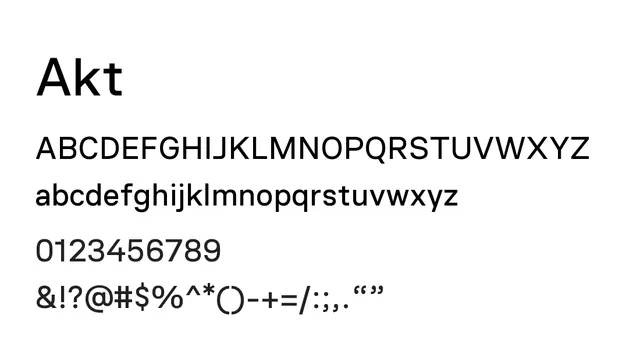
Akt
A polished neo-grotesque sans-serif with strong multilingual support across Latin, Cyrillic, and Greek scripts for global applications.
Excellent for body text and UI typography in applications requiring broad language support. The clean construction and consistent metrics work well across multiple scripts.
Pairs effectively with serif typefaces like Merriweather for editorial contrast, or with Courier Prime for code and technical content.